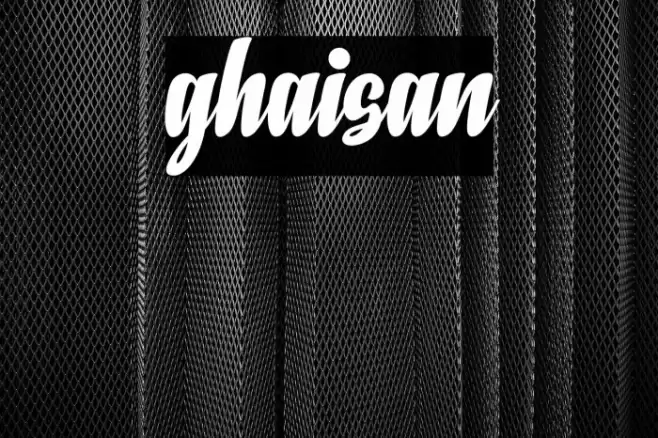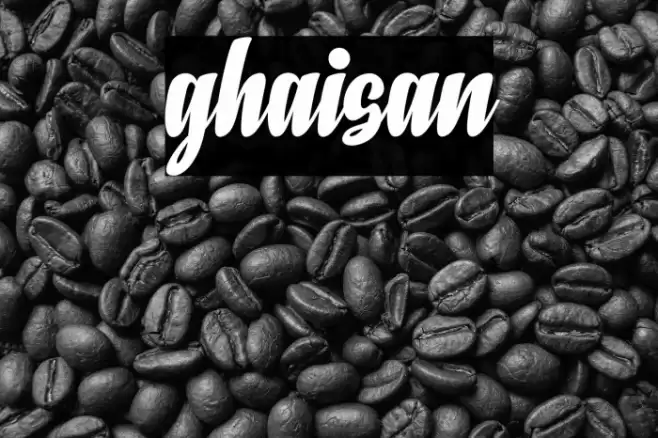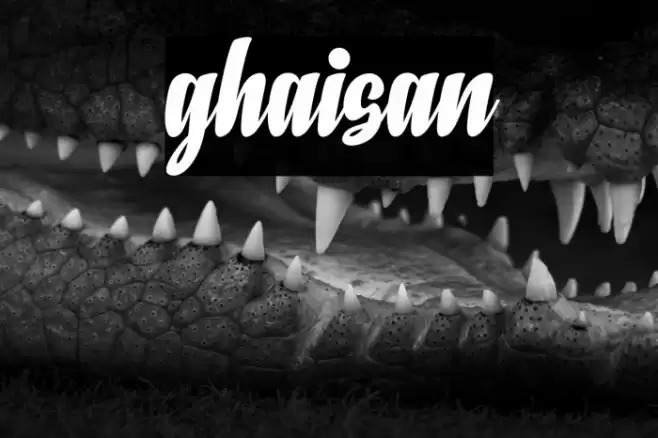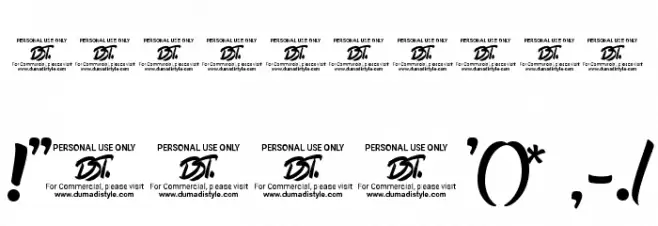
ghaisan Font
ghaisan Description
This font features a bold and dynamic script style with a strong presence. The letters are connected with smooth, flowing strokes that give it a sense of movement and elegance. The uppercase letters are particularly striking, with dramatic flourishes that add a touch of sophistication. The lowercase letters maintain a consistent style, complementing the uppercase with their own graceful curves. The numbers and special characters are designed to match the overall aesthetic, ensuring a cohesive look across all text. This font is ideal for projects that require a touch of elegance and flair.
A bold, dynamic script font with elegant, flowing strokes from Uncategorized fonts.
- Proposed Projects: Perfect for branding, invitations, logos, and decorative headlines.
- Use Case: Logos, Headlines, Invitations